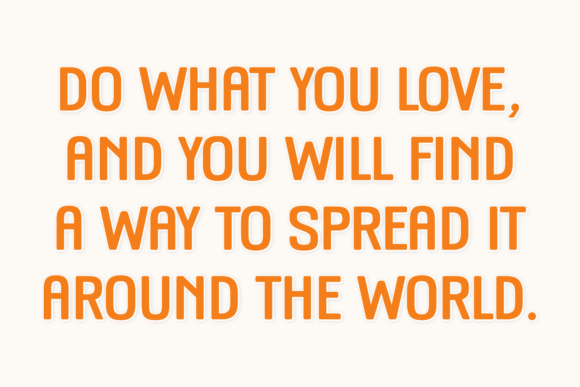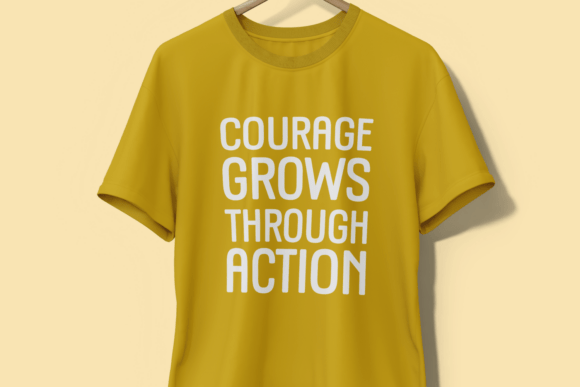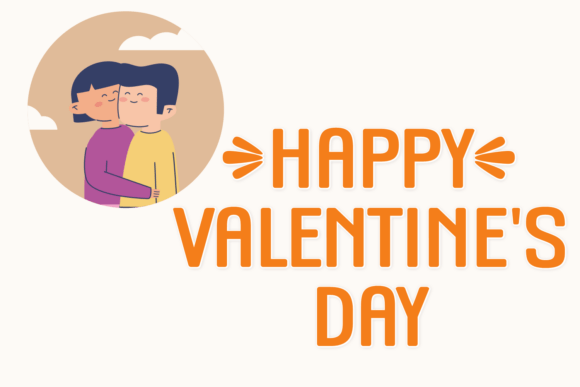
Unlock the Joy of Design with Have Feelings Font
Do you remember the thrill of rummaging through your grandma’s attic, uncovering a treasure trove of vintage stationery and colorful pens? That’s the feeling I get when I see the Have Feelings Font in action – a delightful, dynamic font that’s bursting with personality and charm. This lovable typeface is perfect for designers looking to add a dash of whimsy to their projects.
With its bold presence and chic design, the Have Feelings Font is ideal for crafting logos, headline text, and fashion branding. Its versatility stretches beyond, making it a valuable addition to any designer’s toolkit. Whether you’re working on a fun and cute project or a sophisticated display, this font is sure to bring a breath of fresh air to your designs.
Have Feelings Font Key Features
- Font Family: Have Feelings is a display font family with 6 styles (Thin, Light, Regular, Medium, Bold, Black) and 2 script styles (Have Feelings Script and Have Feelings Handwritten).
- Unique Characteristics: The font features a unique, emotive design with flowing lines and expressive characters, perfect for use in advertising, packaging, and editorial design.
- Language Support: Supports a wide range of languages, including Latin, Cyrillic, Greek, and more.
Review of “Have Feelings Font”
As a designer, I was excited to try out “Have Feelings Font” and see if it could add some emotional depth to my projects. Here’s my honest review.
- Unique and quirky design: The font has a fun, playful feel that’s perfect for adding some whimsy to your designs.
- Expressive characters: The letters and symbols in the font are well-designed and expressive, making it easy to convey emotions through text.
- Good for titles and headings: The font is bold and eye-catching, making it ideal for use in titles and headings where you want to grab the user’s attention.
- Limited versatility: While the font is great for adding a touch of personality to your designs, it may not be suitable for use in long blocks of text where readability is a concern.
- Not ideal for body text: The font is a bit too bold and playful for use in large amounts of body text, where a more neutral font is often preferred.
Overall, I think “Have Feelings Font” is a great choice for designers who want to add some personality and whimsy to their projects. While it may have some limitations, it’s a unique and expressive font that’s sure to grab attention.
Some popular use cases for the Have Feelings Font include:
- Emotional branding and marketing materials
- Illustrations and graphics
- Children’s books and educational materials
Alex Brush Font is a elegant, hand-drawn script font ideal for use in luxury branding, fine art, and high-end publications. It’s perfect for designers who want to add a touch of sophistication and refinement to their projects. Compared to Have Feelings Font, Alex Brush Font has a more luxurious and exclusive appearance, making it suitable for projects that require a high level of prestige.